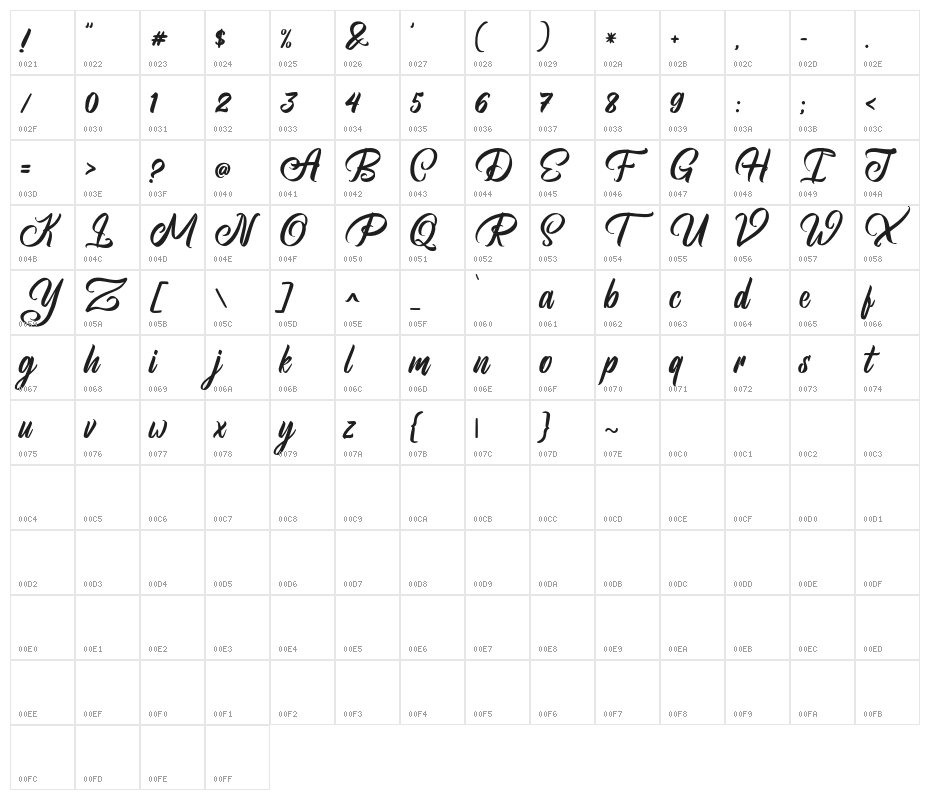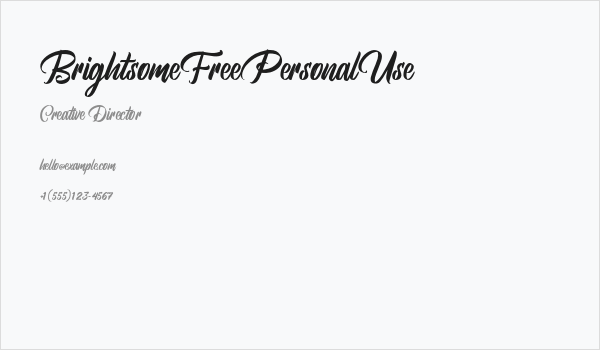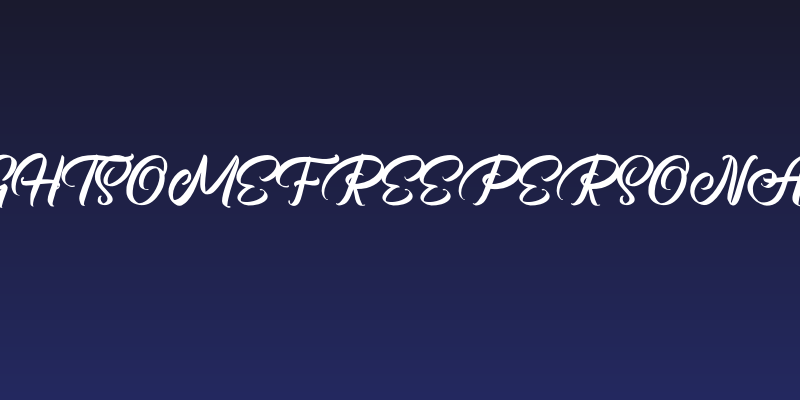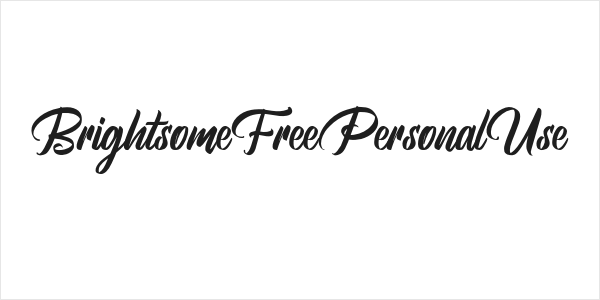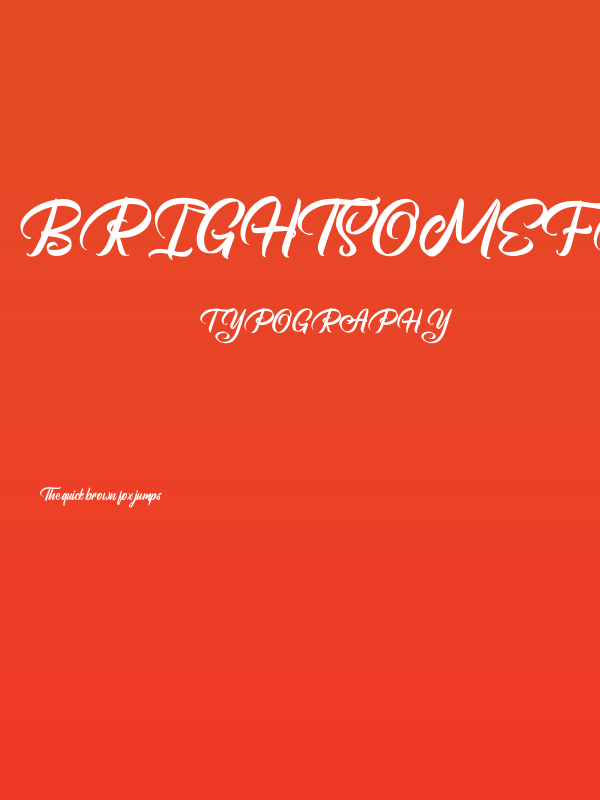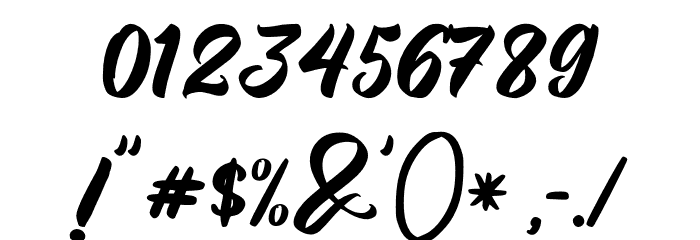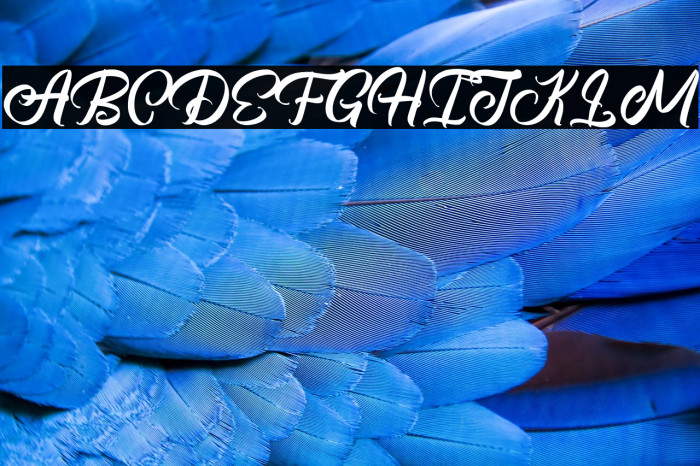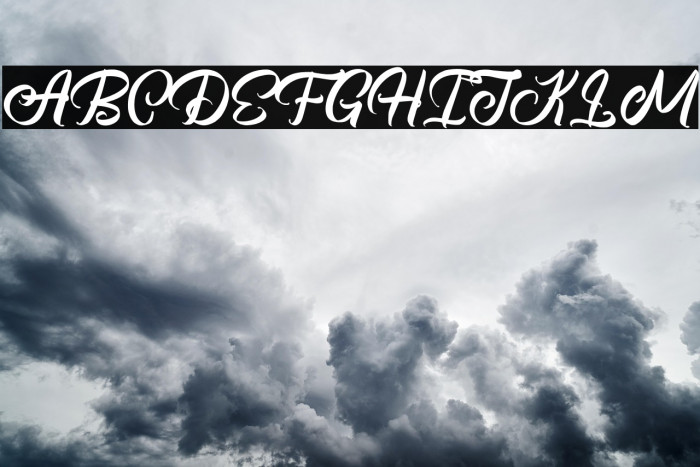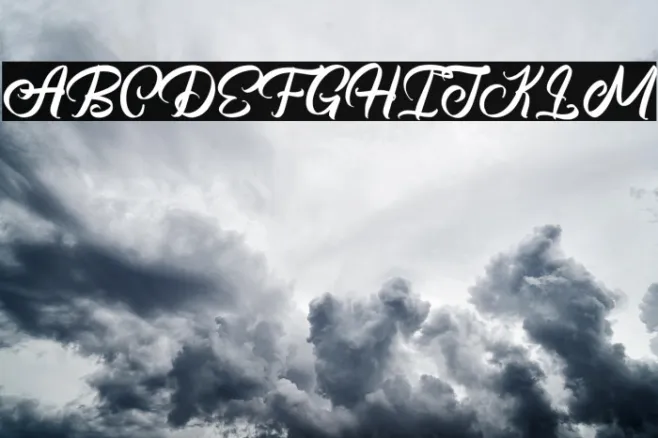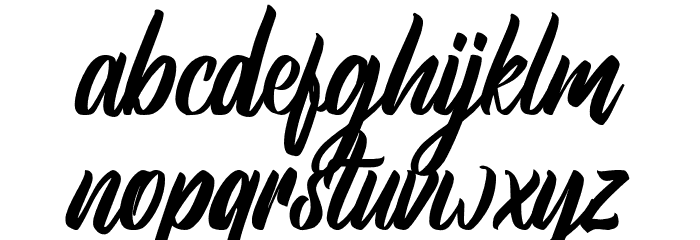
BrightsomeFreePersonalUse Font
BrightsomeFreePersonalUse Description
This font features an elegant and flowing script style, characterized by its cursive and connected letterforms. The uppercase letters exhibit a sophisticated flair with intricate loops and swashes, while the lowercase letters maintain a smooth and consistent flow. The numerals are bold and slightly condensed, complementing the overall aesthetic. Special characters are designed with the same attention to detail, ensuring a cohesive look across all glyphs. This font exudes a sense of elegance and formality, making it suitable for projects that require a touch of sophistication.
| Proposed Projects | Ideal for wedding invitations, elegant branding, greeting cards, and luxury packaging. |